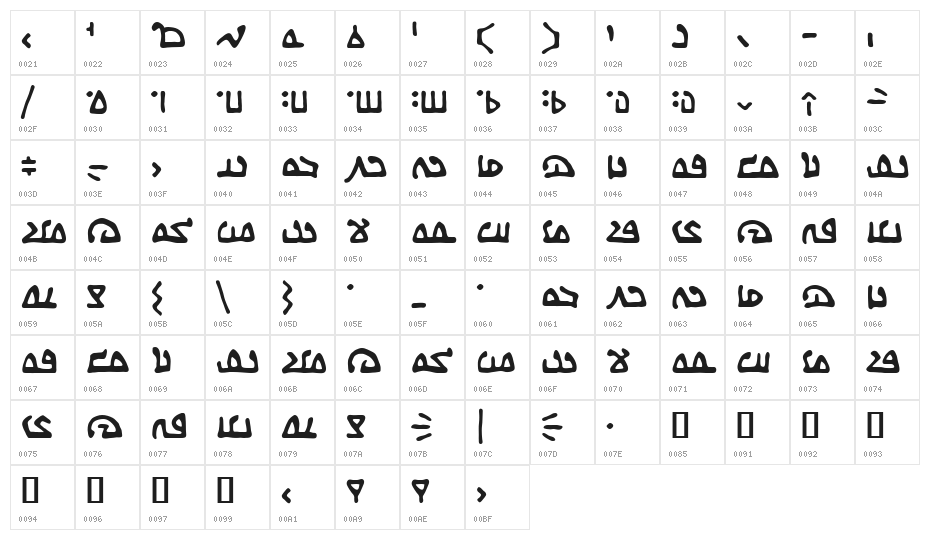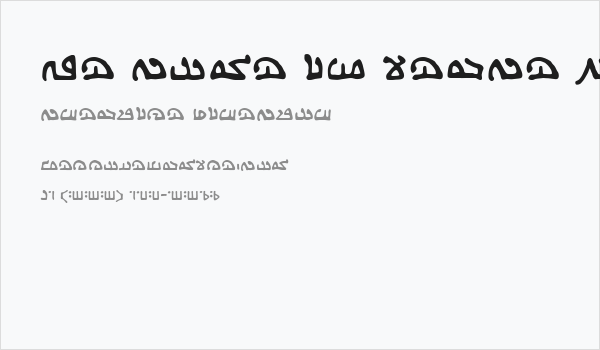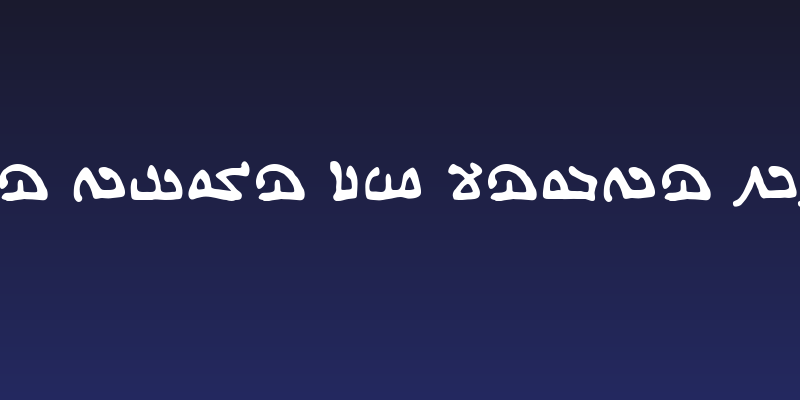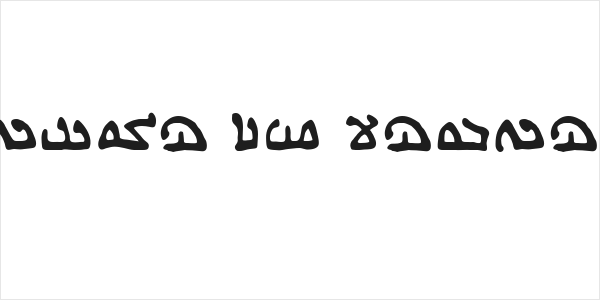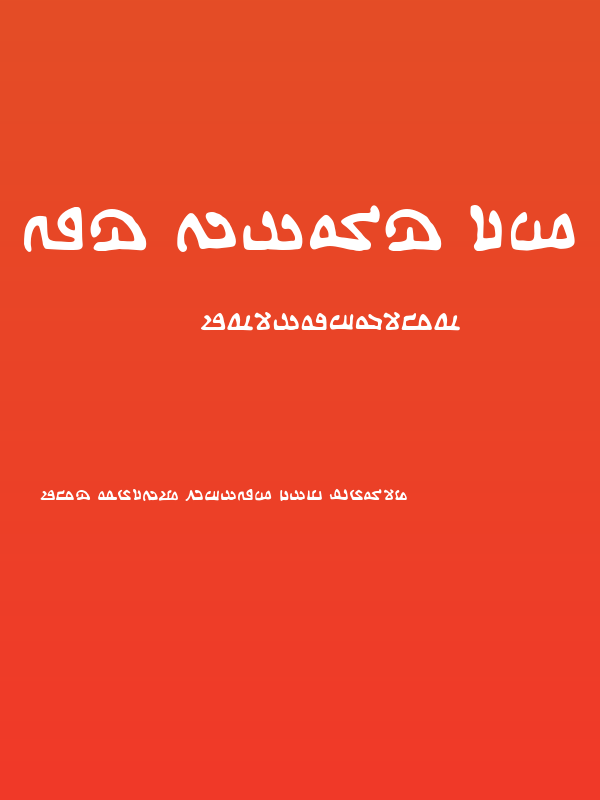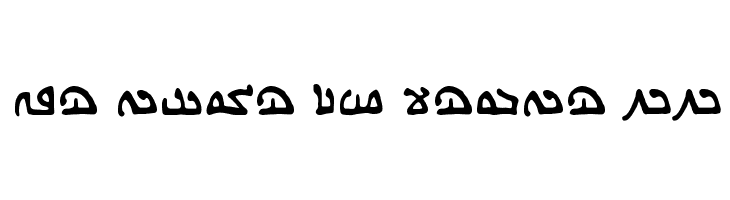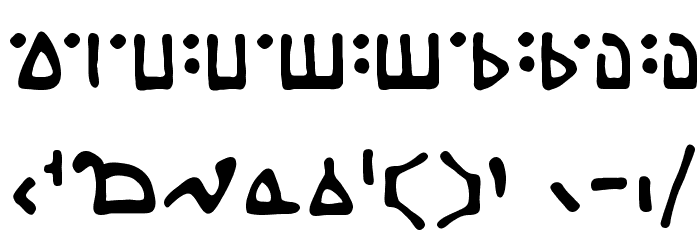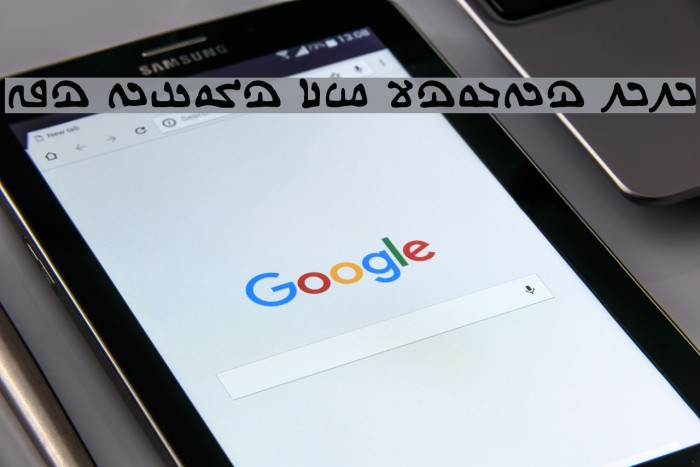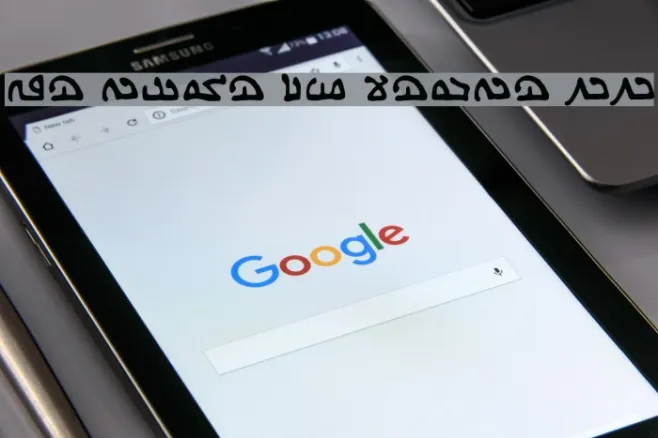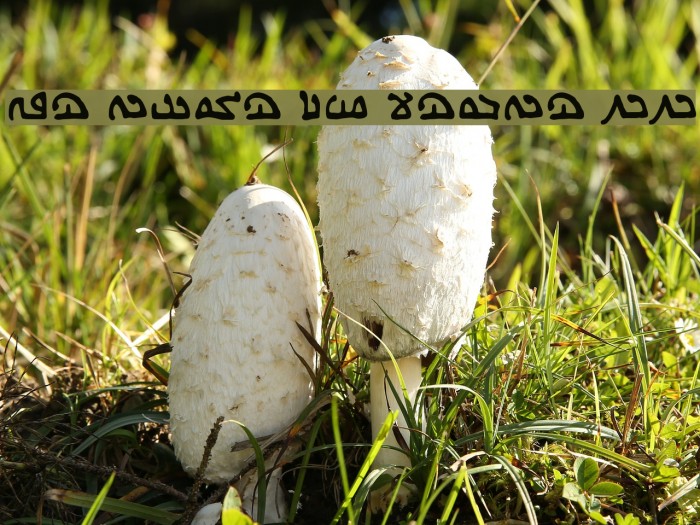
We Come In Peace BB Font
We Come In Peace BB Description
This font features a unique, alien-like script that evokes a sense of mystery and otherworldliness. The characters are composed of bold, rounded shapes with a consistent stroke width, giving them a playful yet cryptic appearance. The design is reminiscent of ancient scripts or extraterrestrial languages, making it ideal for creative projects that require a futuristic or fantastical touch. The uniformity in the character design ensures readability while maintaining an enigmatic aesthetic.
| Overall Style | Futuristic, Mysterious |
| Use Case | Logos, Posters, Themed Events |
| Proposed Projects | Ideal for sci-fi themed designs, video game interfaces, movie posters, or any project needing a futuristic or alien touch. |